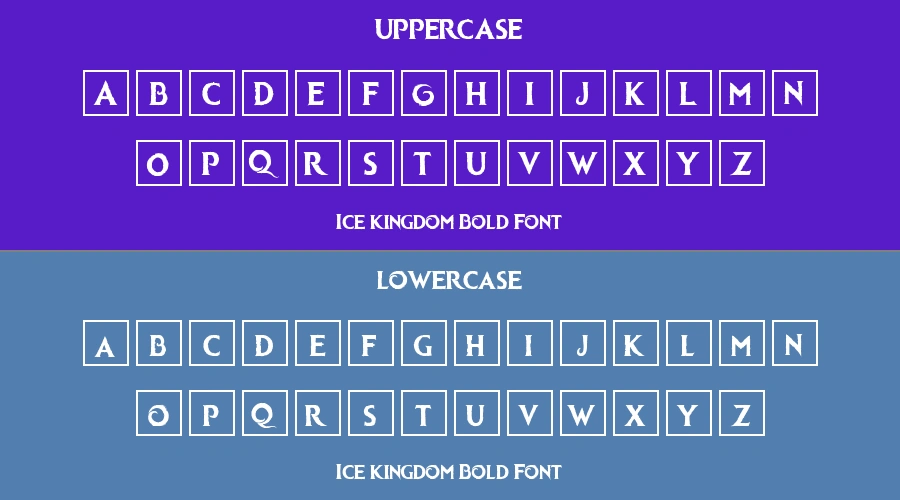
About Ice kingdom Bold Font
Designed with precision, Ice kingdom Bold Font merges balanced weights with generational appeal in every character. This versatility makes it particularly effective for brand guidelines, where authenticity and brand differentiation directly impact communication quality. Each letterform demonstrates meticulous craftsmanship.
Technical excellence shines through elements like ornamental details and dingbat elements, enhancing typographic versatility. In identification tags settings, Ice kingdom Bold Font proves its worth through superior reliability. The thoughtful execution of serif length and market positioning ensures professional results.